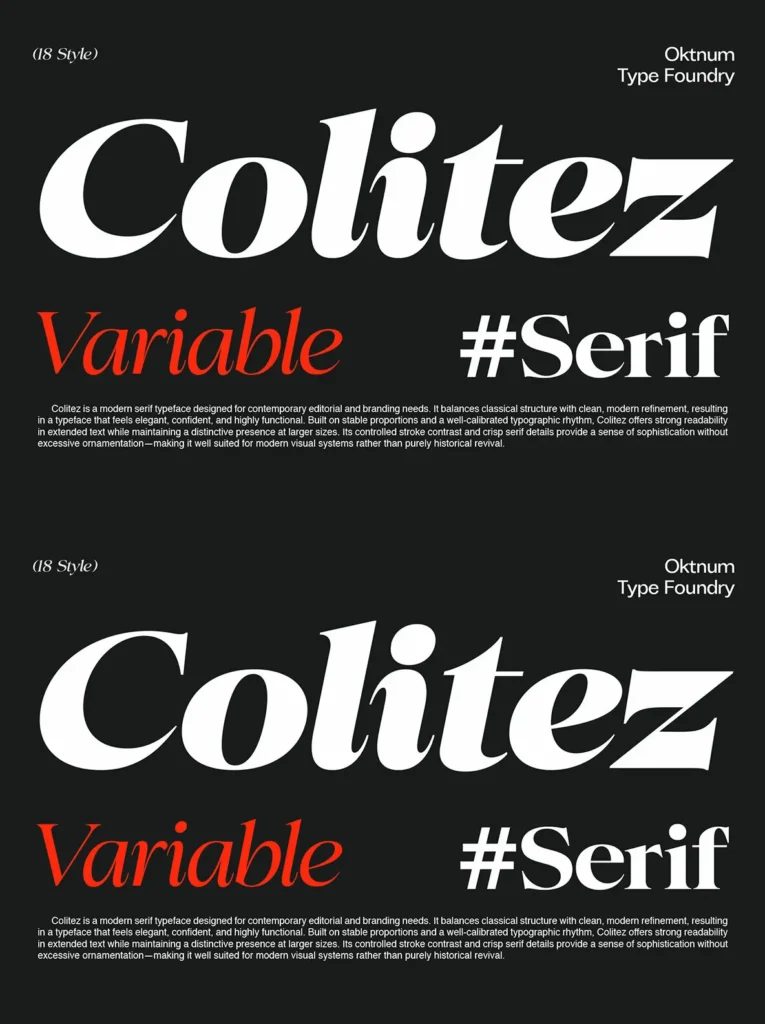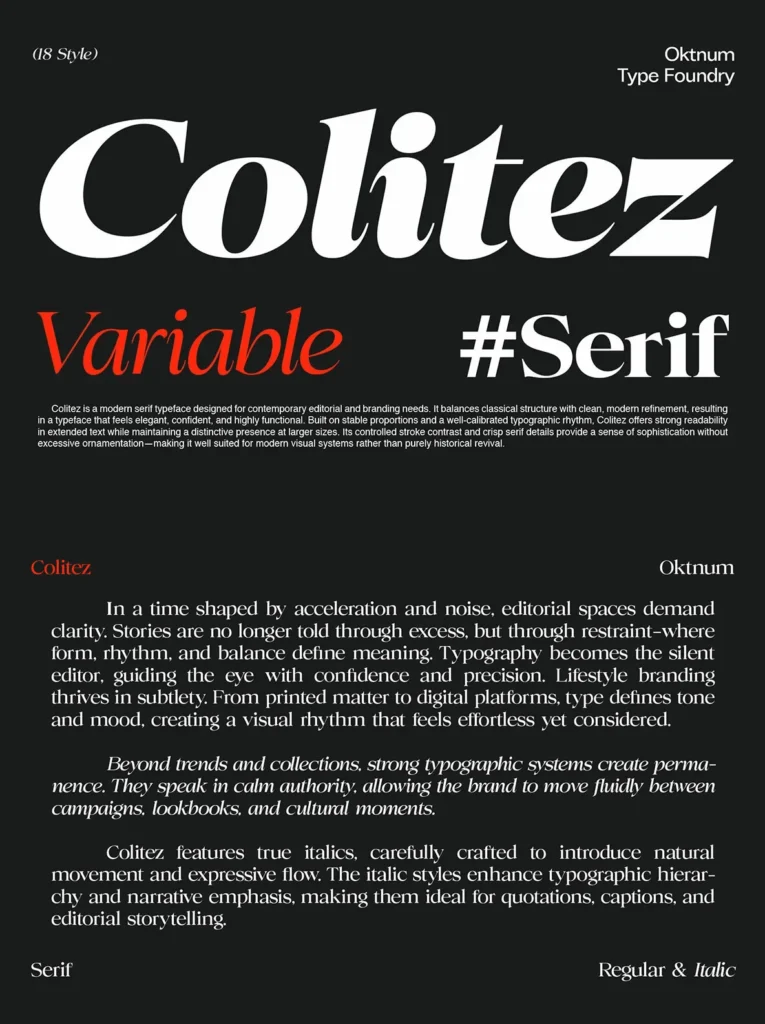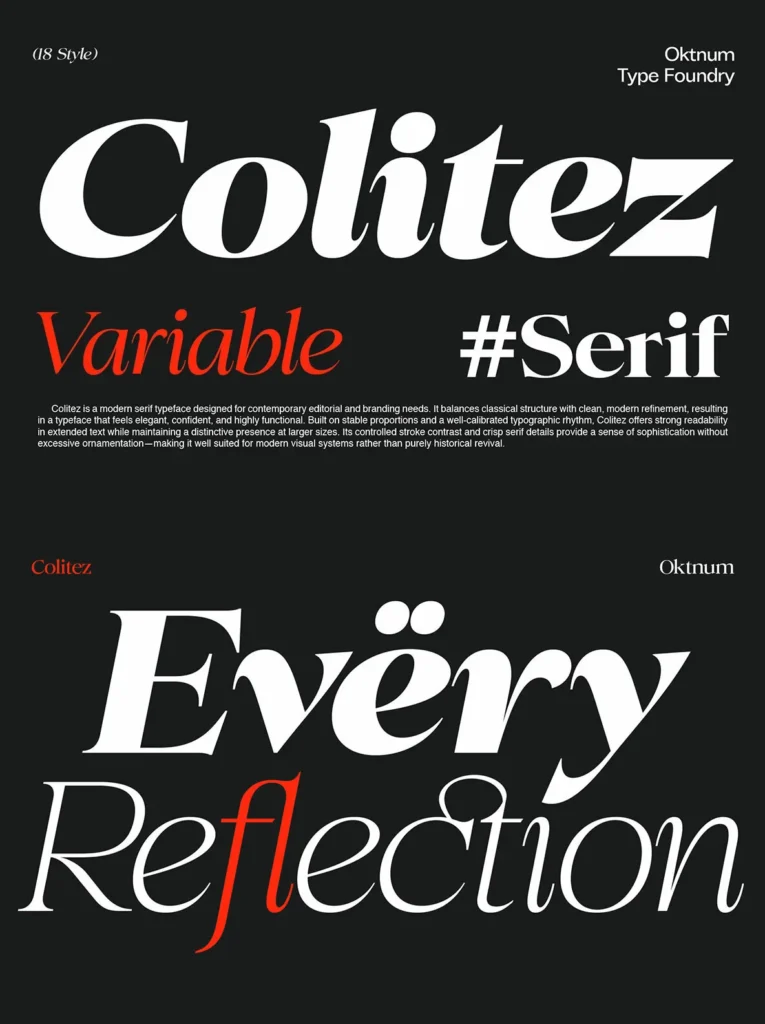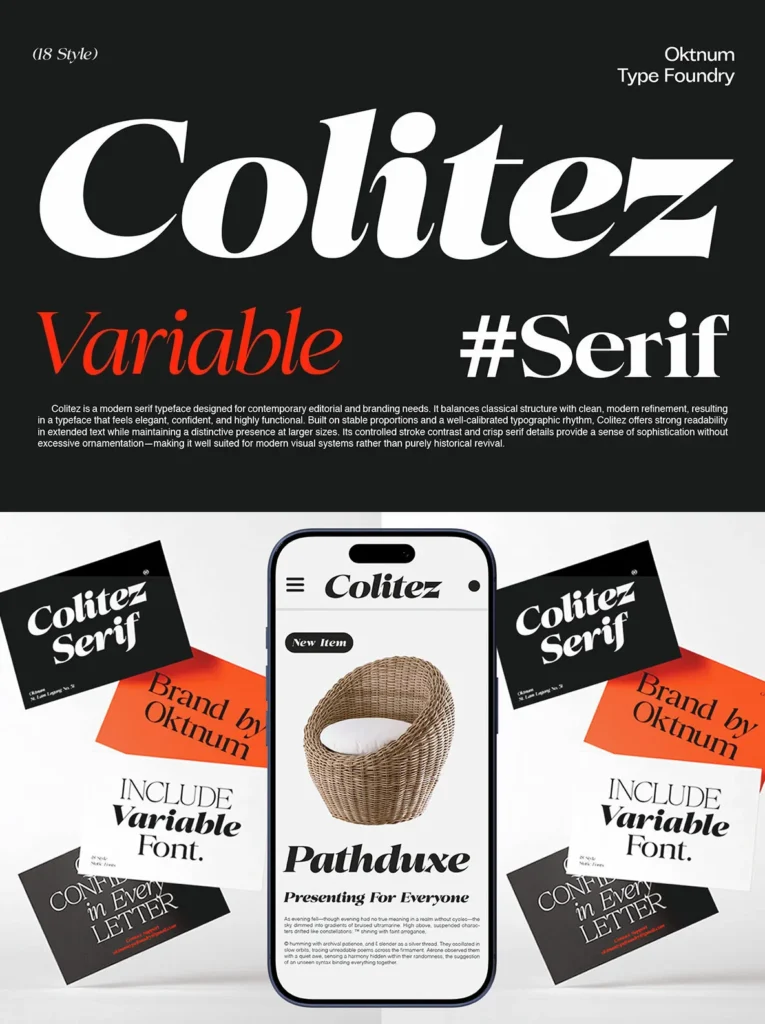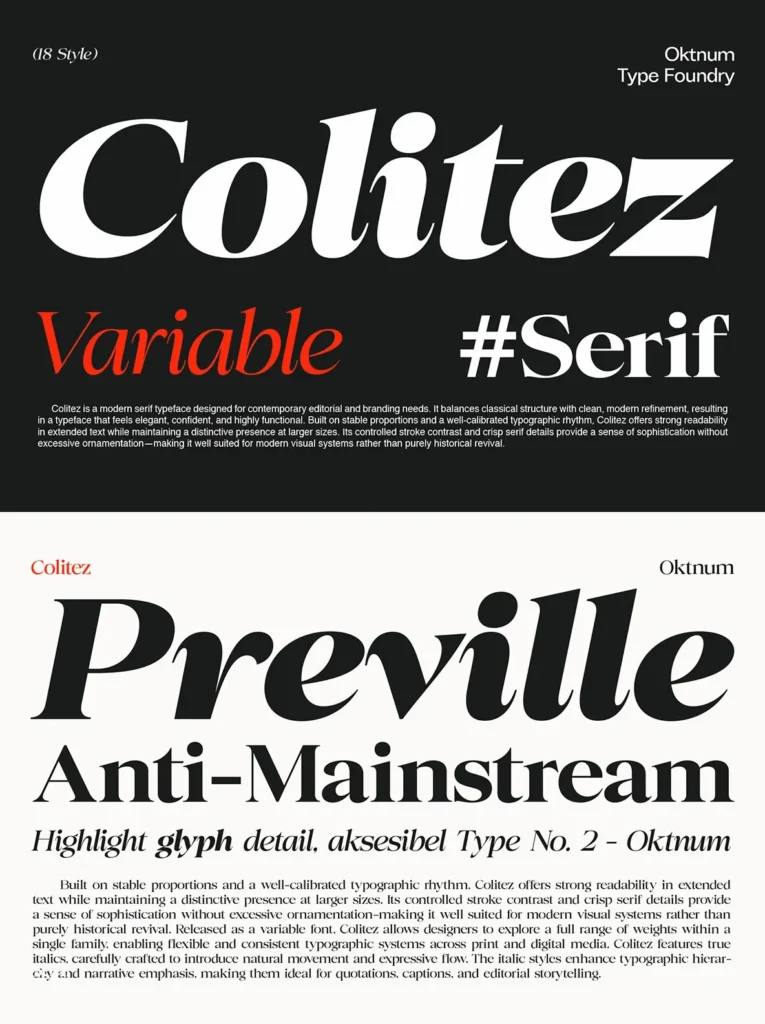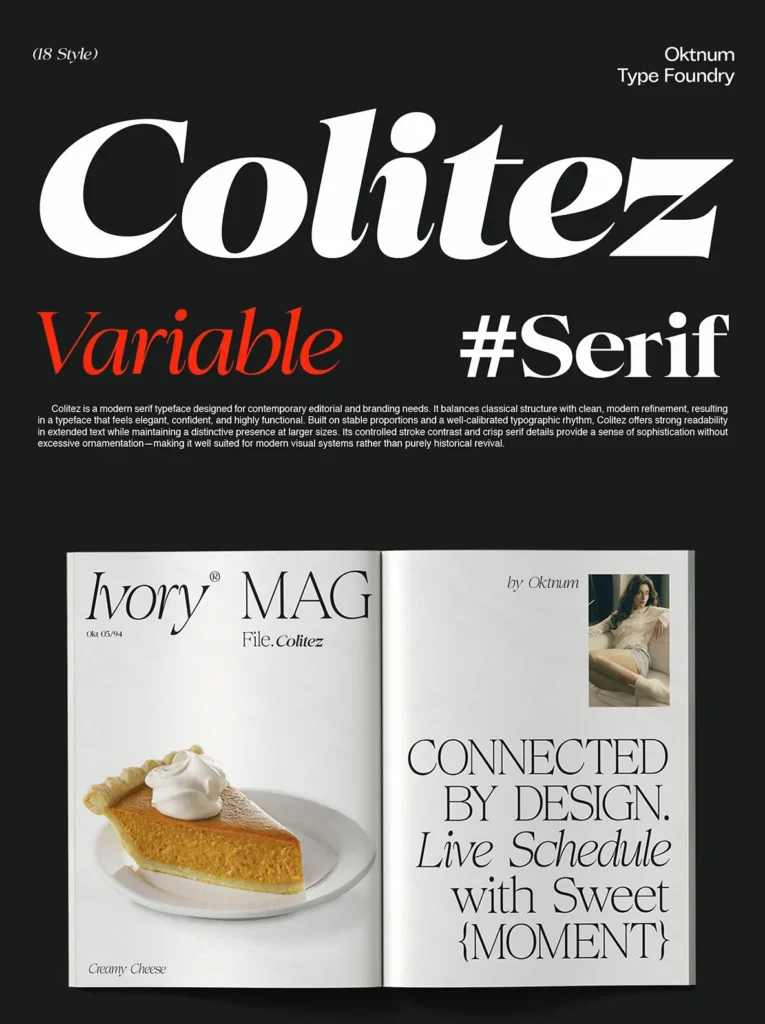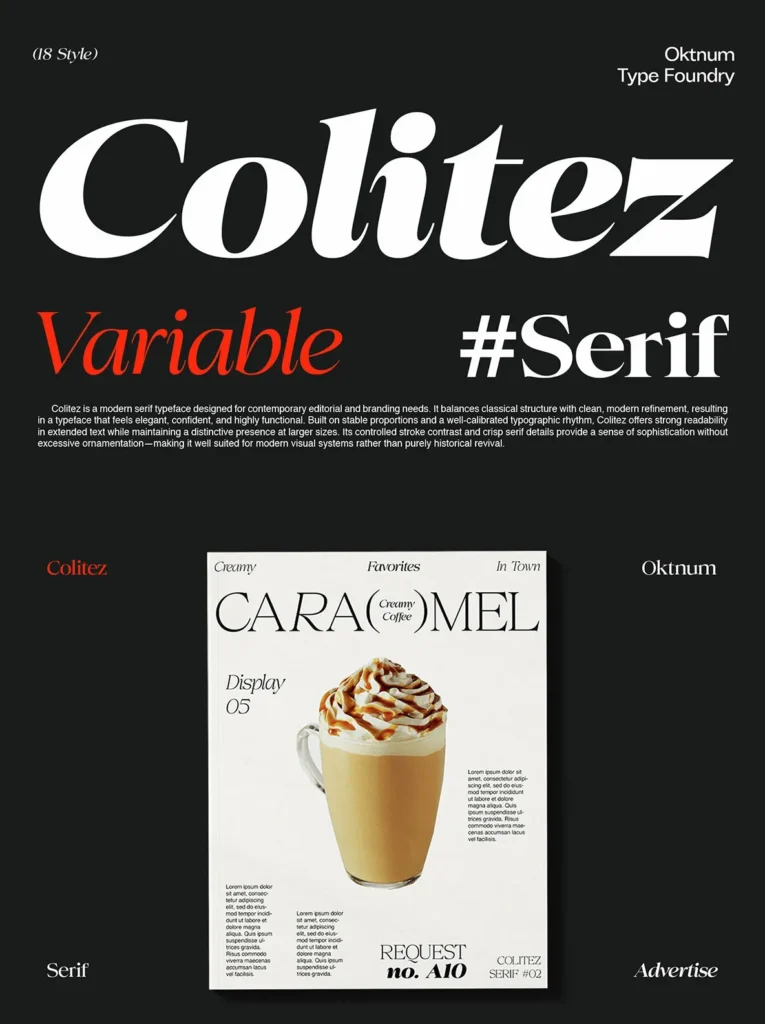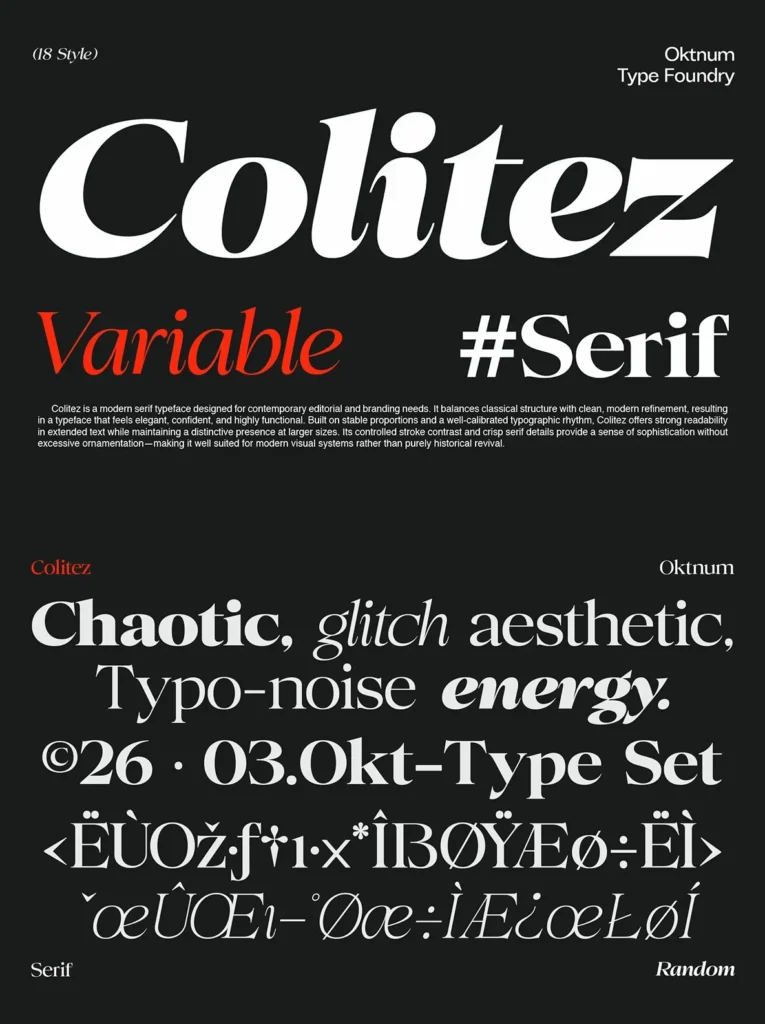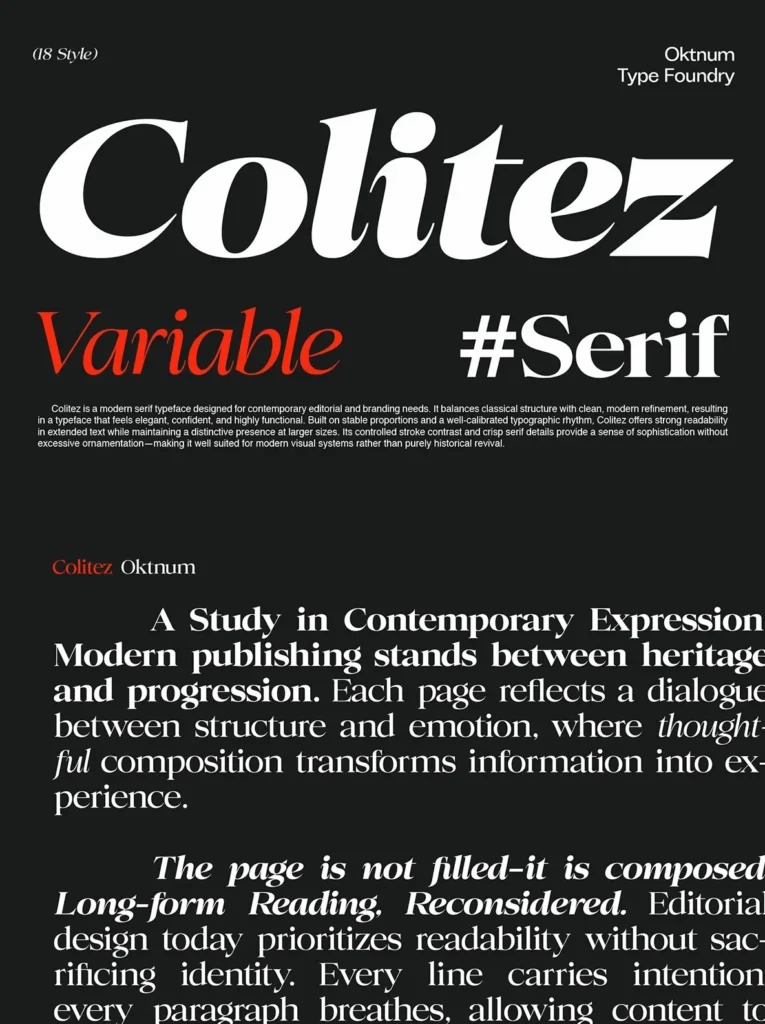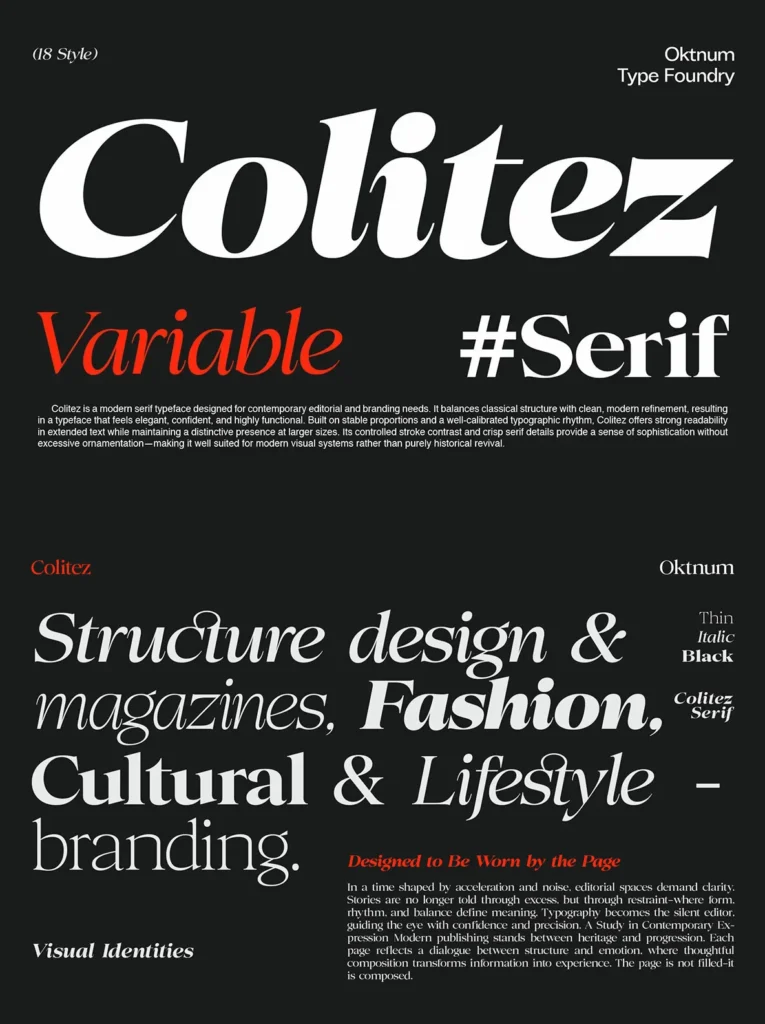
Colitez Serif Font
Colitez Serif — Classy Editorial Poise
Colitez Serif is a refined serif typeface made for contemporary editorial design, branding, and related visual applications. It brings classical structure together with clean modern refinement, giving the family an elegant, confident, and functional voice. Stable proportions and a well-calibrated typographic rhythm support strong readability in extended text, while the typeface keeps a distinctive presence at larger display sizes.
Controlled stroke contrast and crisp serif details give Colitez Serif a sophisticated tone without excessive ornamentation. This makes it well suited to modern visual systems rather than purely historical revivals. The family also includes beautifully designed italics, which add natural movement and expressive flow for typographic hierarchy, narrative emphasis, quotations, captions, and editorial storytelling.
Released as a variable font, Colitez Serif allows designers to work across a comprehensive range of weights within a single family. It supports flexible and consistent typographic systems for both print and digital media, making it a strong choice for polished editorial layouts and brand identities with lasting clarity.